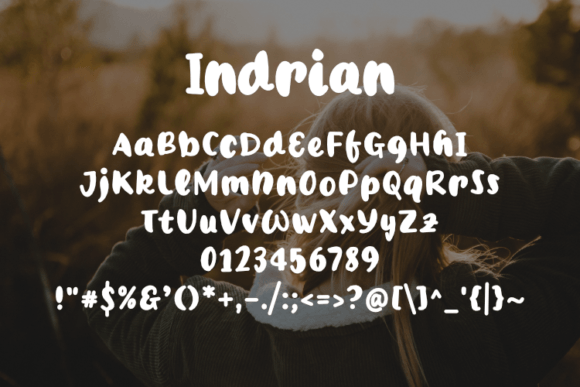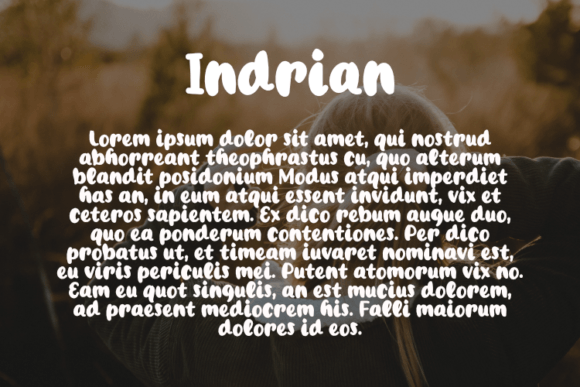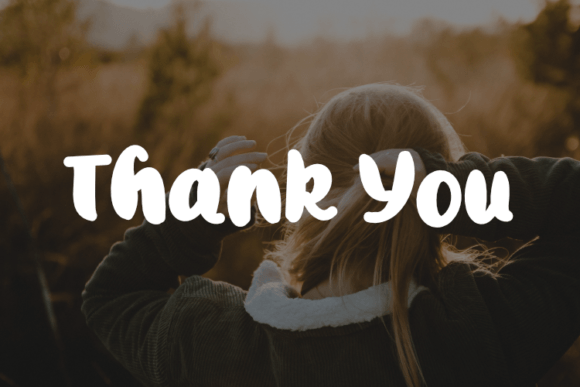
Introduction to Indrian Font
Experience the versatile and stylish Indrian font, a typographic masterpiece ideal for fashion design applications, including clothes and T-shirt creations.
With its universal compatibility, Indrian effortlessly elevates any design project in any software environment, imbuing every creation with a unique aesthetic appeal that captures attention and imagines possibilities Let your designs exude exceptional personality with Indrian, the font where style meets functionality.
Indrian Font offers exceptional quality and versatility, making it a valuable addition to your design toolkit. Whether you’re creating for personal projects or commercial use, Indrian Font delivers professional results.